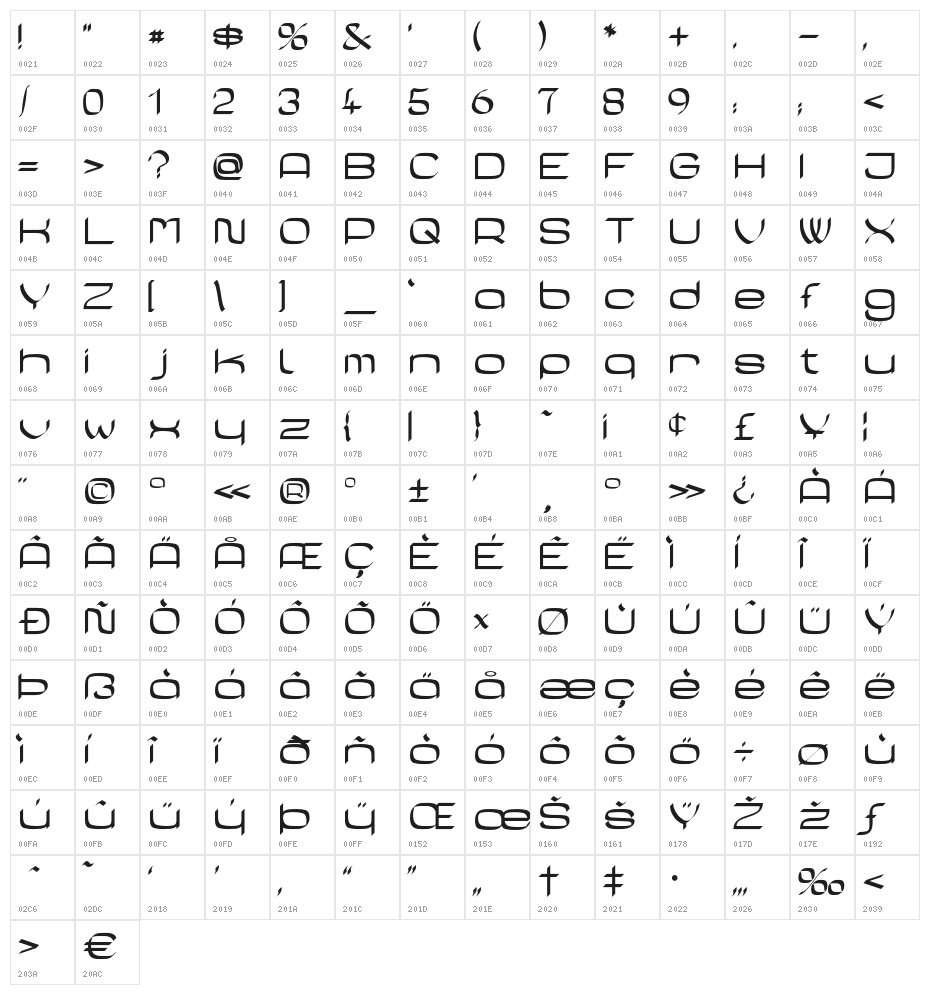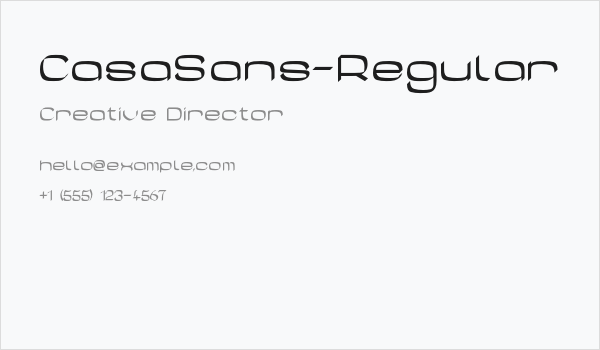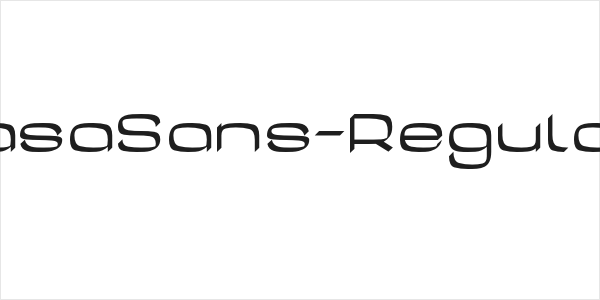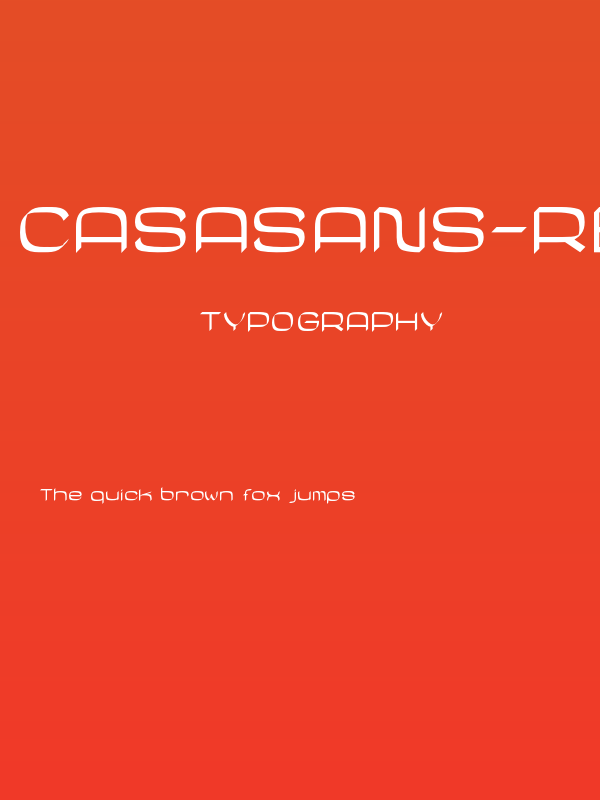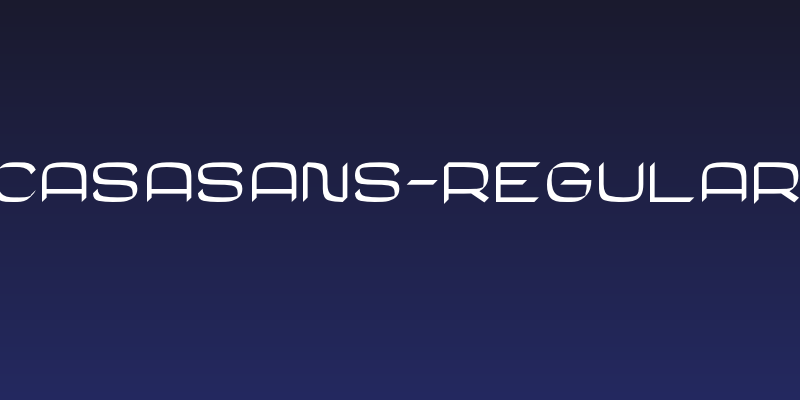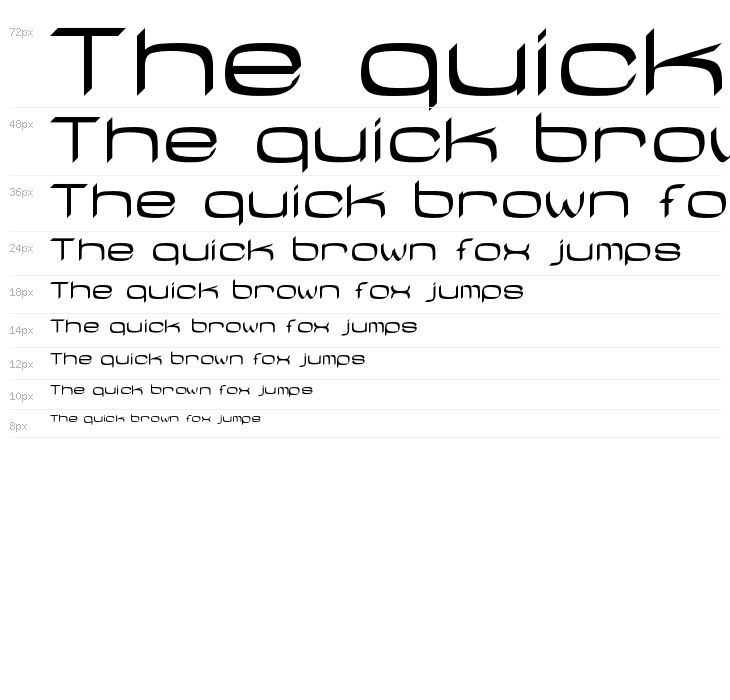
CasaSans-Regular Font
CasaSans-Regular Description
This font features a modern and futuristic design with sharp, angular edges and a sleek appearance. The uppercase letters are bold and distinct, with unique cuts and curves that give them a dynamic look. The lowercase letters maintain a consistent style, offering a smooth transition between characters. Numbers are designed with a similar aesthetic, providing a cohesive appearance across all elements. Special characters are crafted with attention to detail, ensuring they complement the overall style. The font's geometric structure and clean lines make it suitable for contemporary designs.
| Use Case | Headlines, Logos, Digital Interfaces |
| Proposed Projects | Ideal for technology branding, sci-fi posters, modern logos, and digital interfaces. |